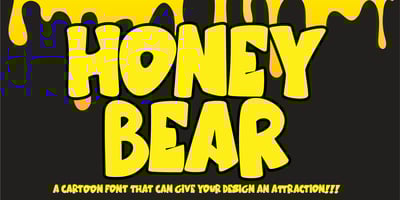
Honey Bear
Honey Bear font
Honey Bear Font Family was designed by Thomas Aradea and published by Letterara. Honey Bear contains 2 styles and family package options. Honey Bear is inspired by honey and cartoon fonts and features an incredibly fun and cute feel! Get inspired by its childlike charm. The features: • The style in this font includes: Regular & Italic • Works both on Mac & PC • Simple installations • Ligature • Support Silhouette • Accessible in the Adobe Illustrator, Adobe Photoshop, Adobe InDesign, CorelDraw, even work on Microsoft Word. • Multilingual Support: ä ö ü Ä Ö Ü ß ¿ ¡ To stay up to date for my latest job, follow me and let’s be friends because there will be many promos.